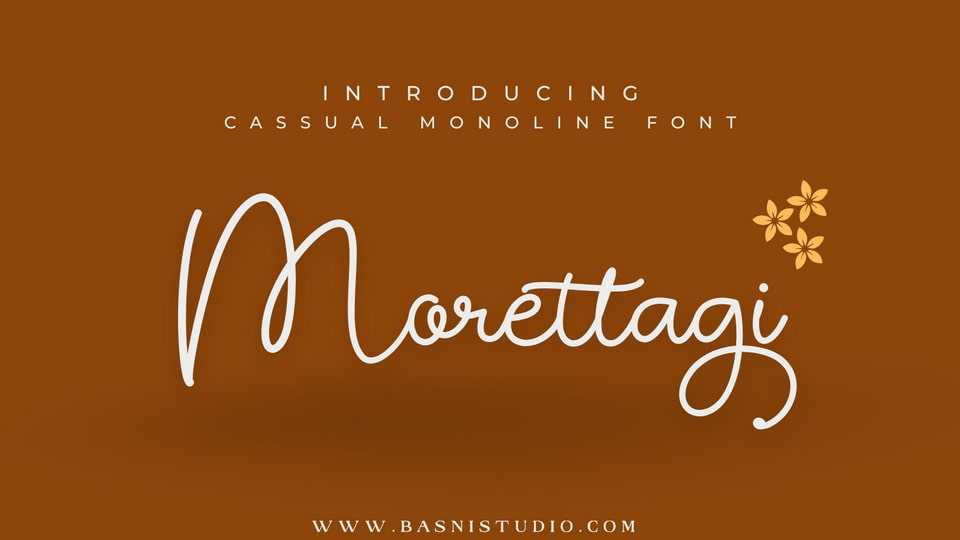
Download Morettagi font, a beautifully crafted monoline script that flows effortlessly like a handwritten love letter, perfect to add a touch of romance, elegance, and charm to your designs.